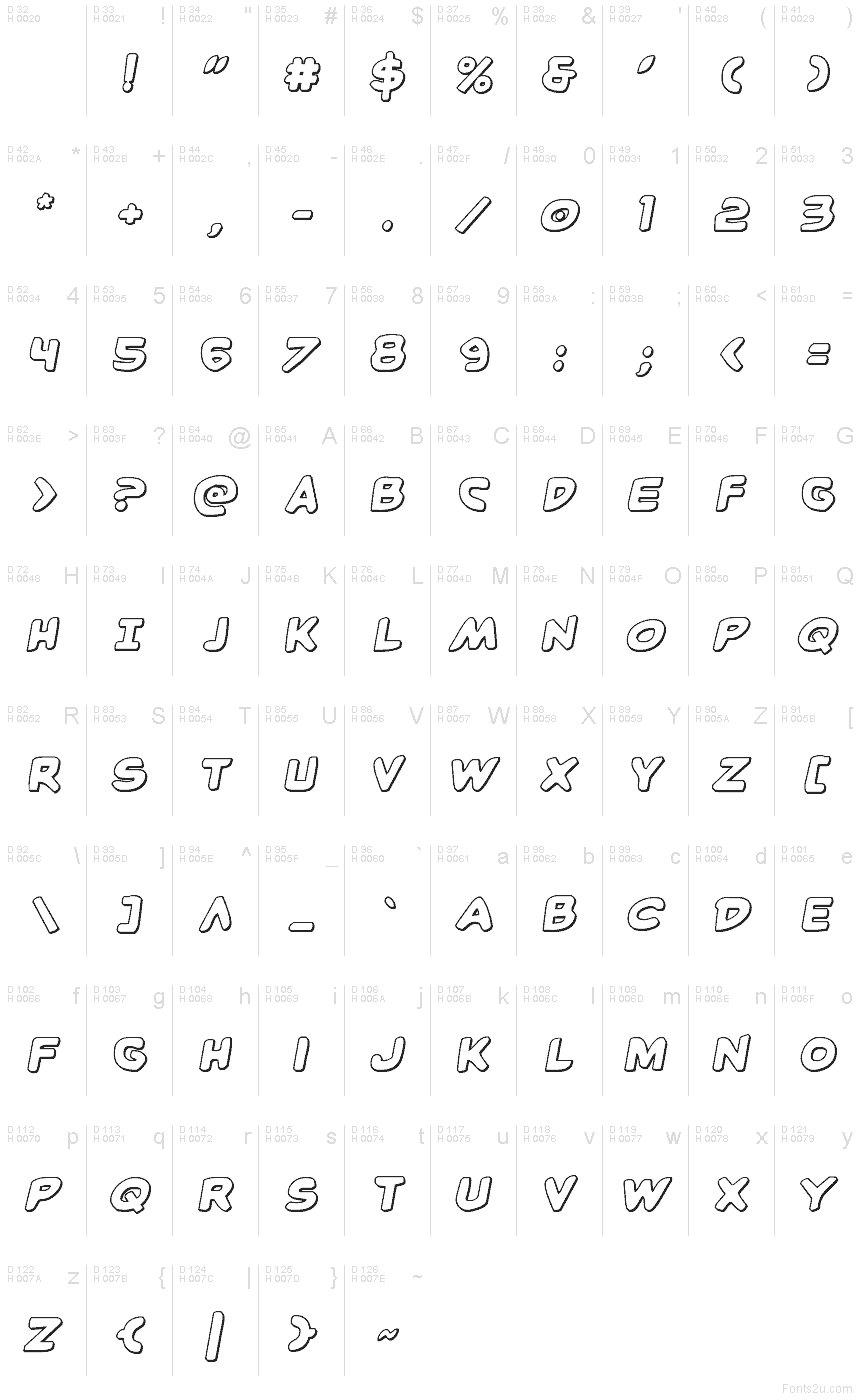
Caped Crusader 3D Semi-Italic
Caped Crusader 3D Semi-Italic font by Iconian Fonts is a display bold expanded font with a comic style. Its comic-style design with vibrant mood and outlined characters gives it an undeniably unique look. Historical references of the 60s pop culture give the font retro comic influences that remain relevant to today’s trends.
Use Caped Crusader 3D Semi-Italic for free in graphic novels, entertainment branding, and pop culture merchandise projects. Take advantage of its fun mood in publication headings, flyer titles, children-orientated product packaging, or exhibition graphics.